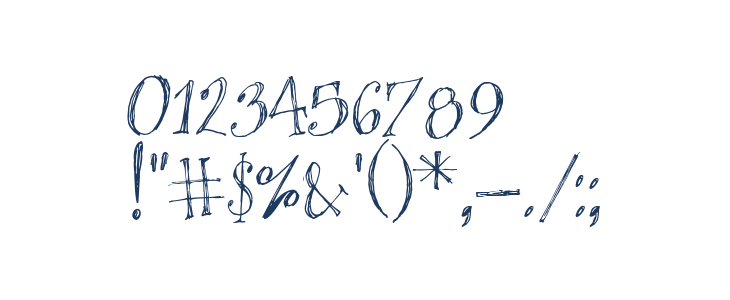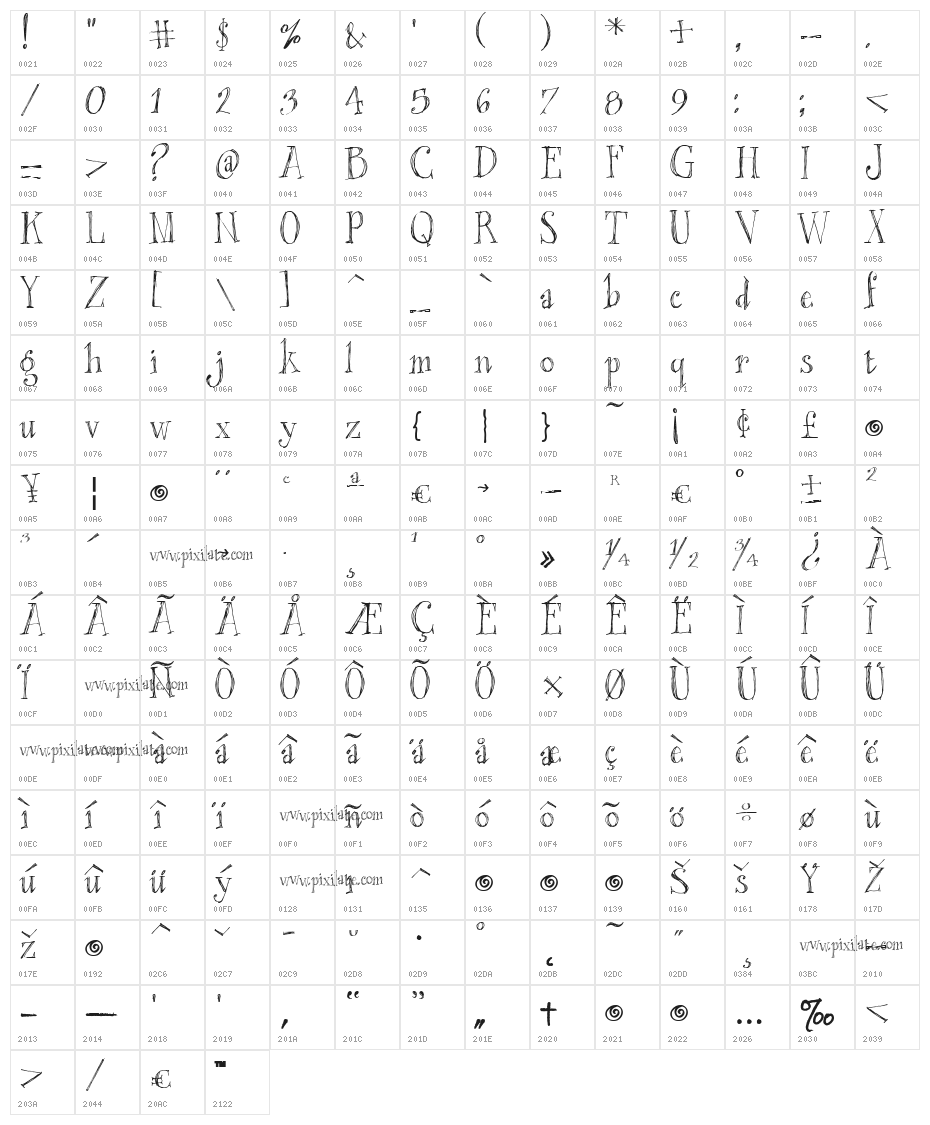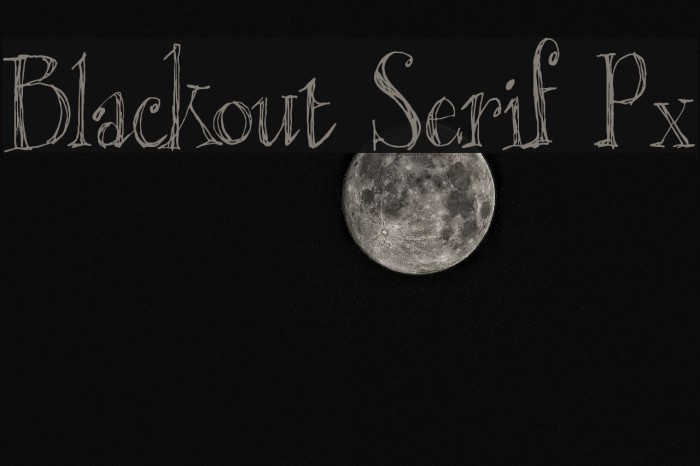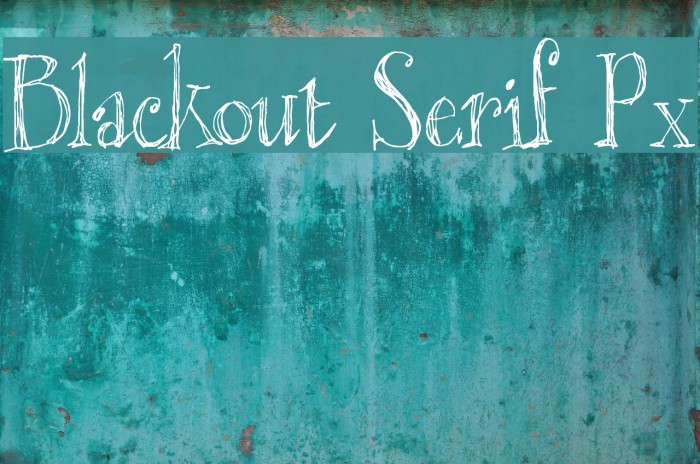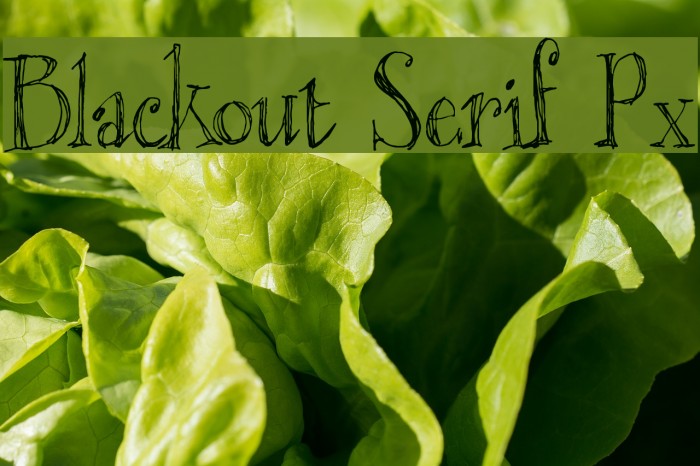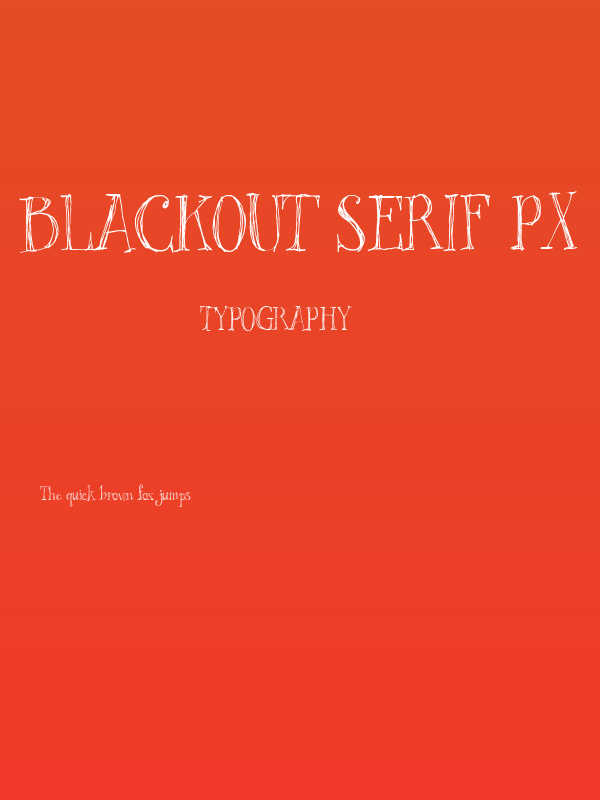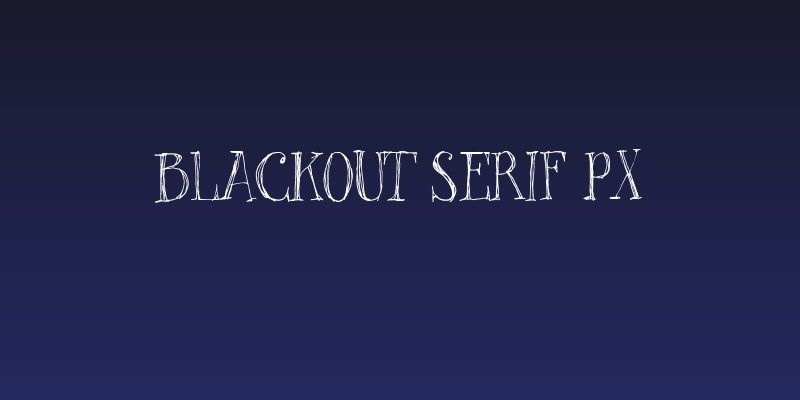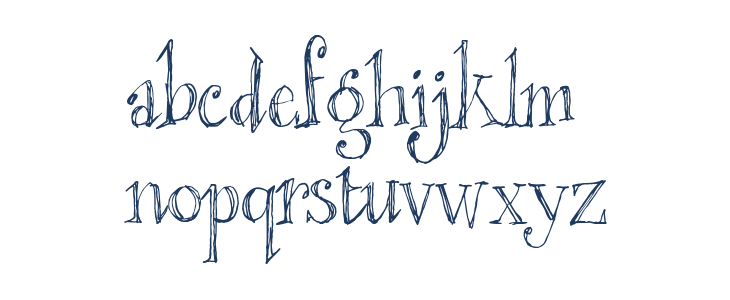
Blackout Serif Px Font
Blackout Serif Px Description
This font features a distinctive hand-drawn style with a sketch-like appearance. The characters are irregular and have a playful, artistic quality, reminiscent of doodles or rough sketches. The uppercase and lowercase letters maintain a consistent style, with exaggerated curves and uneven lines that give the font a dynamic and energetic feel. The numbers and special characters follow the same aesthetic, ensuring a cohesive look across all glyphs. This font's unique design makes it stand out, offering a creative and informal vibe.
| Overall Style | Artistic, Playful, Creative |
| Proposed Projects | Ideal for creative projects such as posters, album covers, children's books, and artistic branding. |